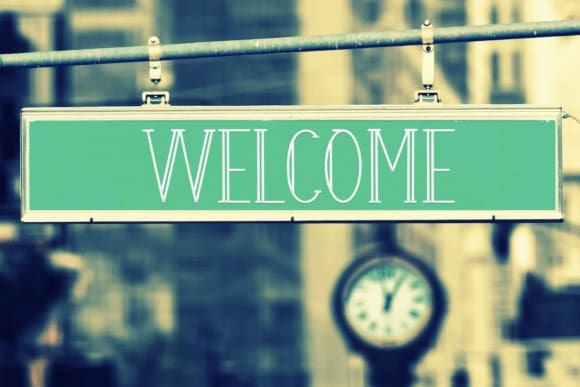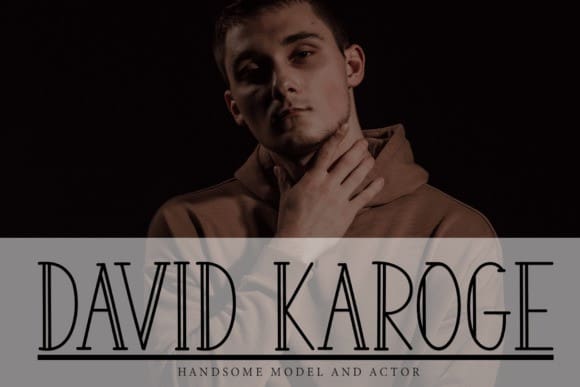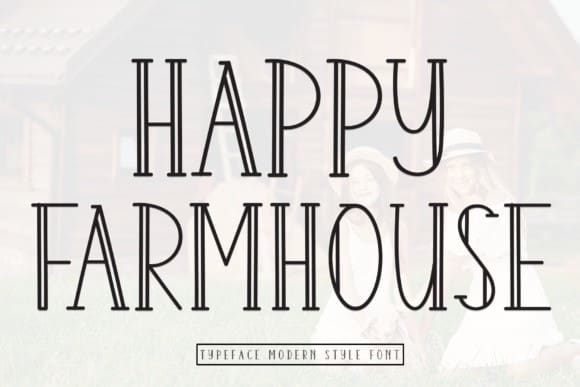
Happy Farmhouse Font
Happy Farmhouse Font is a sweet and friendly handwritten display font. Fresh and neat, this font is ideal for writing wedding invitations, cards, or any other design that might need a fun touch!